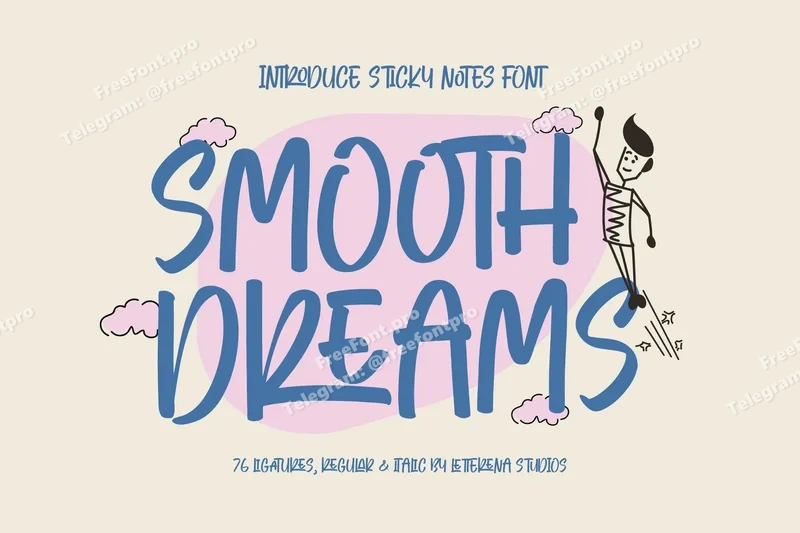
Smooth Dreams – Sticky Notes Font
Smooth Dreams is a playful handwritten font with a fun and casual style, designed to bring warmth and creativity to your projects. Featuring 76 ligatures and natural brush strokes, this typeface is perfect for logos, posters, packaging, invitations, branding, and social media designs. With its relaxed and friendly personality, Smooth Dreams adds a charming hand-drawn touch to both print and digital projects, making every layout feel cheerful and personal.